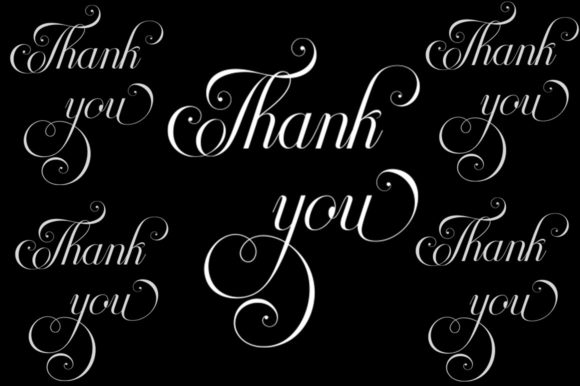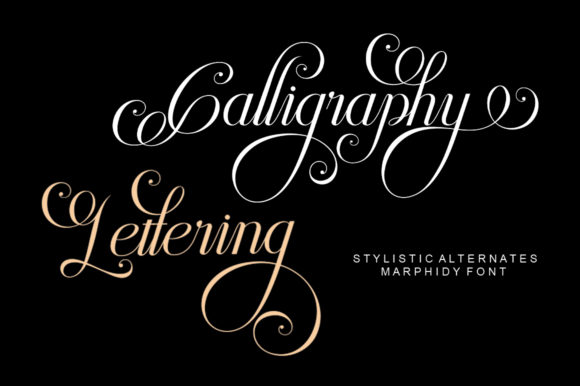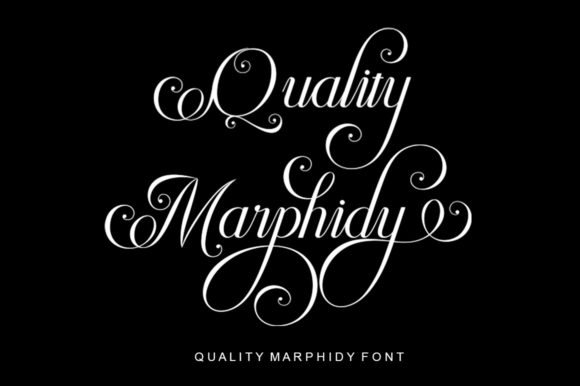
About Marphidy Script Font
Marphidy Script is a lovely script font featuring charming, playful characters that seem to dance along the baseline. This font is PUA encoded which means you can access all glyphs and swashes with ease!